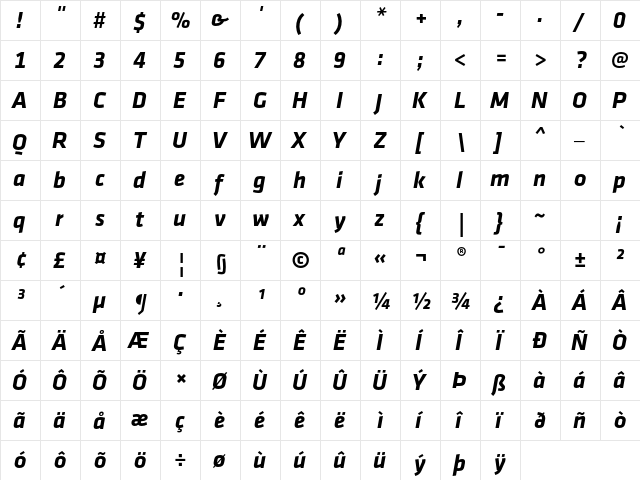
Klavika Bold Bold Italic TF
Design Context for Klavika Bold Typeface
Klavika Bold is a composed and adaptable typeface that performs quietly and consistently across a wide range of design contexts. The slanted form adds forward momentum and visual energy. Its bold stroke weight gives it real presence on the page.
Pro Tip: Try Klavika Bold for annotation and caption copy alongside an upright companion — the contrast in angle creates a dynamic but ordered typographic system.